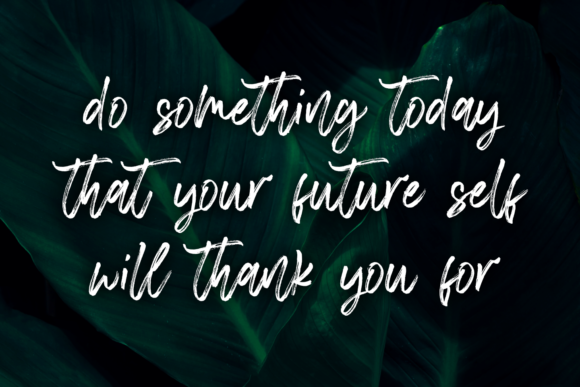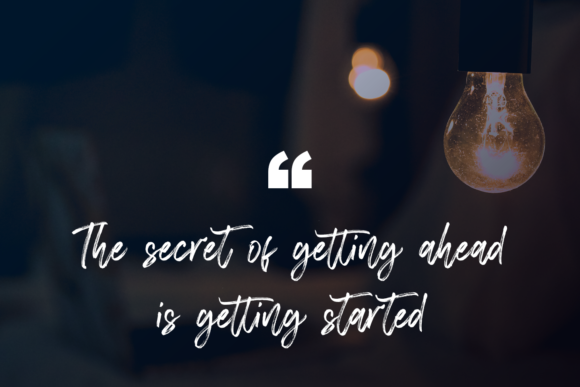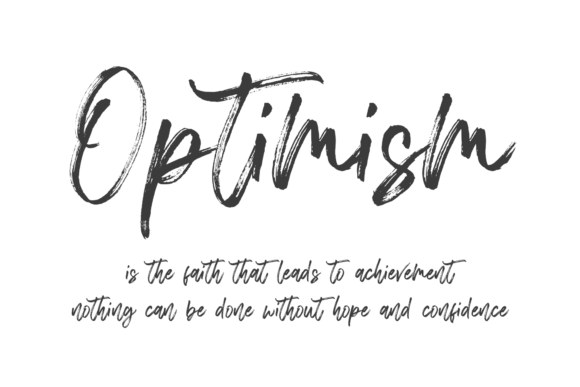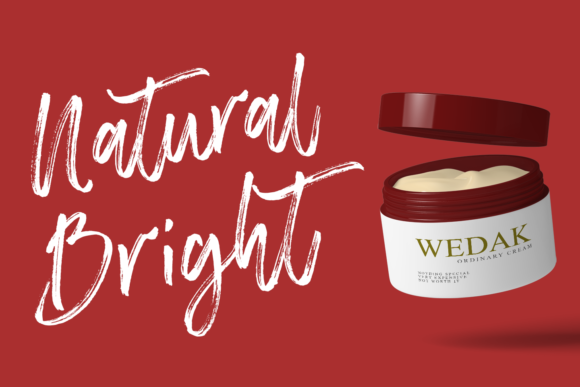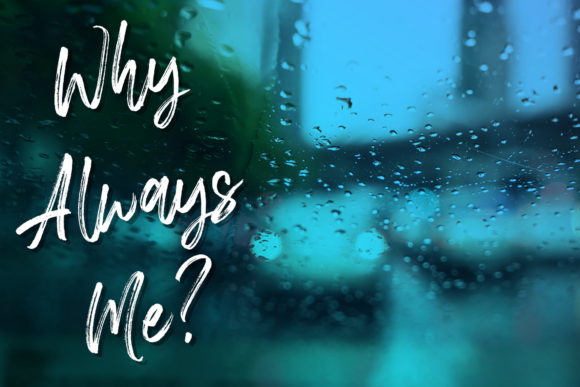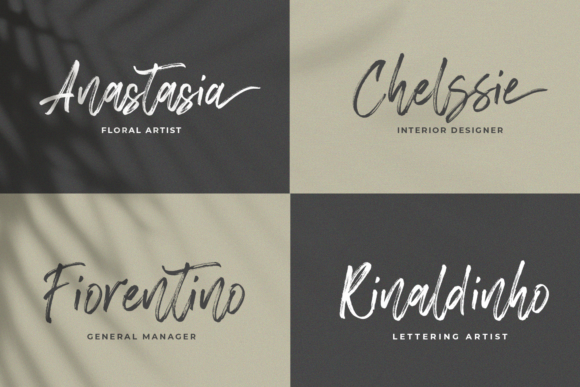
Discover the Magic of Chelistine Font
Have you ever been stuck on a design project, searching for the perfect font to bring your creative vision to life? We’ve all been there, pouring over font libraries, trying to find that elusive combination of style and sophistication. But what if I told you that the perfect font is just a click away? Introducing Chelistine Font, a modern script font with flowing curves that’s sure to captivate your audience and elevate your design game.
Whether you’re a seasoned designer or just starting out, Chelistine Font is the perfect addition to your toolkit. Its playful look and feel make it versatile enough to use in a wide range of projects, from branding and marketing materials to digital graphics and social media posts. And with its unique style, you’ll be able to stand out from the crowd and make a lasting impression on your audience.
Key Features of Chelistine Font
- Font Family: Chelistine Font is a script font, ideal for creative and elegant designs.
- Character Set: Includes a wide range of characters, including uppercase and lowercase letters, numbers, and punctuation marks.
- Unique Characteristics: Features a distinctive, flowing script style with swashes and connecting strokes, perfect for adding a touch of elegance and sophistication to designs.
Chelistine Font Review
Chelistine is an elegant script font that exudes a sense of sophistication and refinement. Here’s my honest review of this beautiful font.
- Unique and stylish design: Chelistine has a distinctive, hand-written feel that’s perfect for creative projects and branding.
- Wide character set: The font includes a wide range of characters, including accents and punctuation, making it versatile and suitable for various languages.
- High-resolution quality: Chelistine looks great in high-resolution formats, making it ideal for printing and digital applications.
- Not ideal for body text: Chelistine’s script design makes it less readable in large blocks of text, so it’s best used for headings, titles, and other prominent elements.
- Limited flexibility: Chelistine is a relatively formal font, so it may not be suitable for projects that require a more playful or casual tone.
- May not work well in small sizes: Chelistine’s intricate design can become difficult to read when reduced to small font sizes.
Chelistine is a beautiful font that shines in the right contexts. While it may have some limitations, its unique design and high-quality rendering make it a valuable addition to any designer’s toolkit.
Chelistine Font: A Practical Application Guide
Tips for Getting the Most Out of Chelistine Font
For best results, use the Chelistine font in designs that require a playful, elegant touch. This font pairs well with serif and sans-serif fonts, and can be used for headings, titles, and body text.
To add visual interest, experiment with font sizes, colors, and styles to create a unique look.
Chelistine font is ideal for:
Children’s book illustrations and designs
Food and beverage branding
Wedding and event planning materials
Alternatives to Chelistine Font for Designers
Oswald is a sans-serif font designed by Vernon Adams. It is a modern and clean font, perfect for titles and headings in digital and print media. Oswald is ideal for projects that require a strong and contemporary look. It has a slightly condensed feel, making it ideal for use in digital interfaces. Compared to Chelistine Font, Oswald has a more geometric and modern aesthetic.
Playfair Display is a luxurious and elegant serif font designed by Claus Eggers Sørensen. It is perfect for use in high-end branding, advertising, and editorial projects. Playfair Display has a classic and sophisticated feel, making it ideal for projects that require a touch of luxury and sophistication. Compared to Chelistine Font, Playfair Display has a more ornate and refined aesthetic.